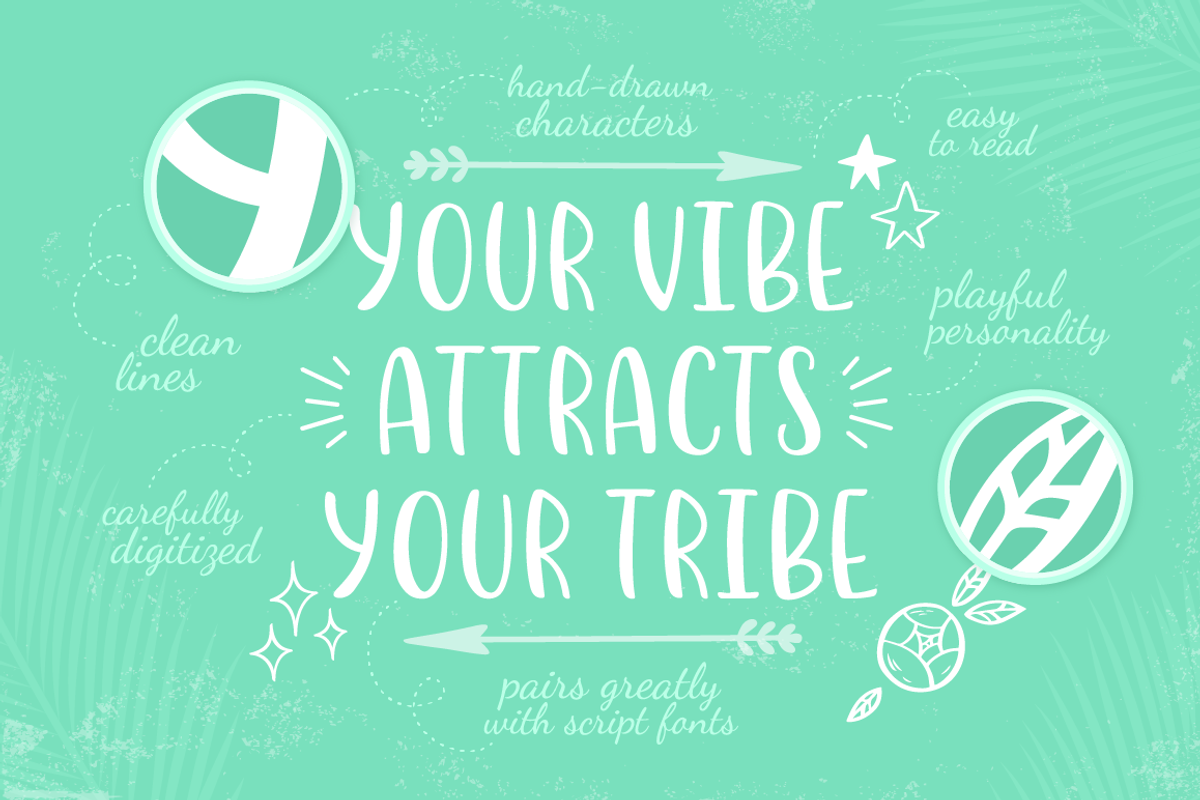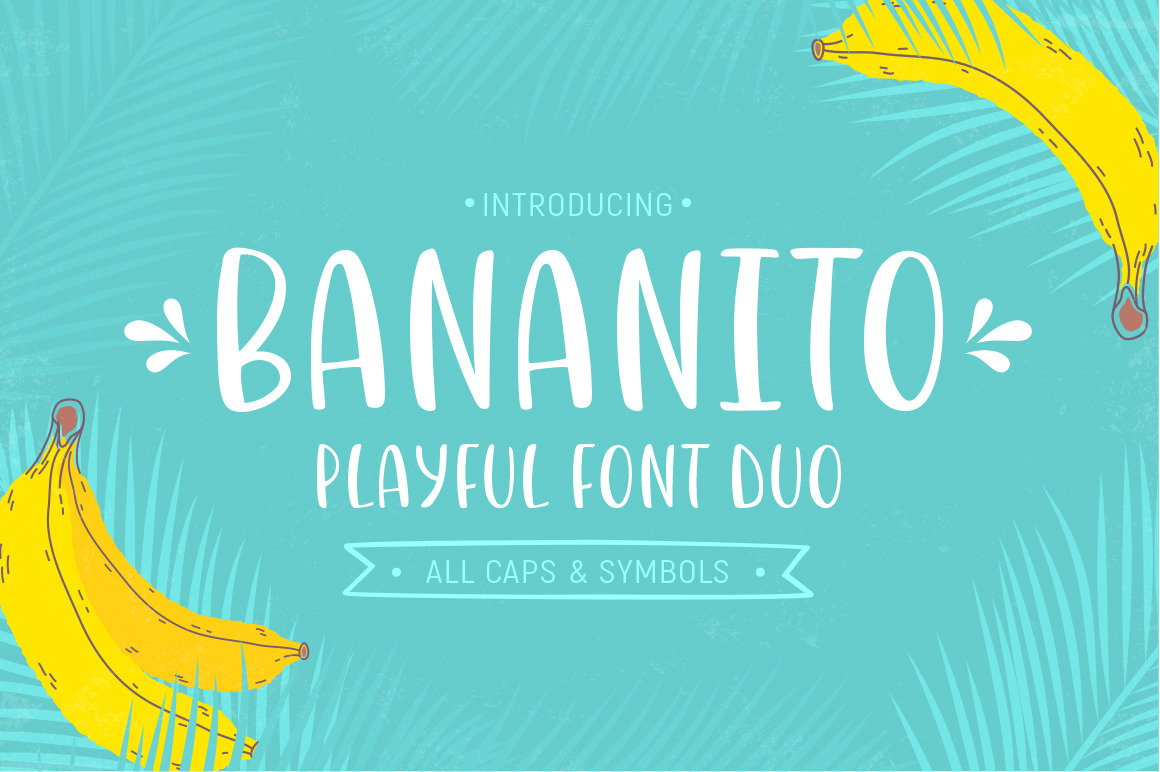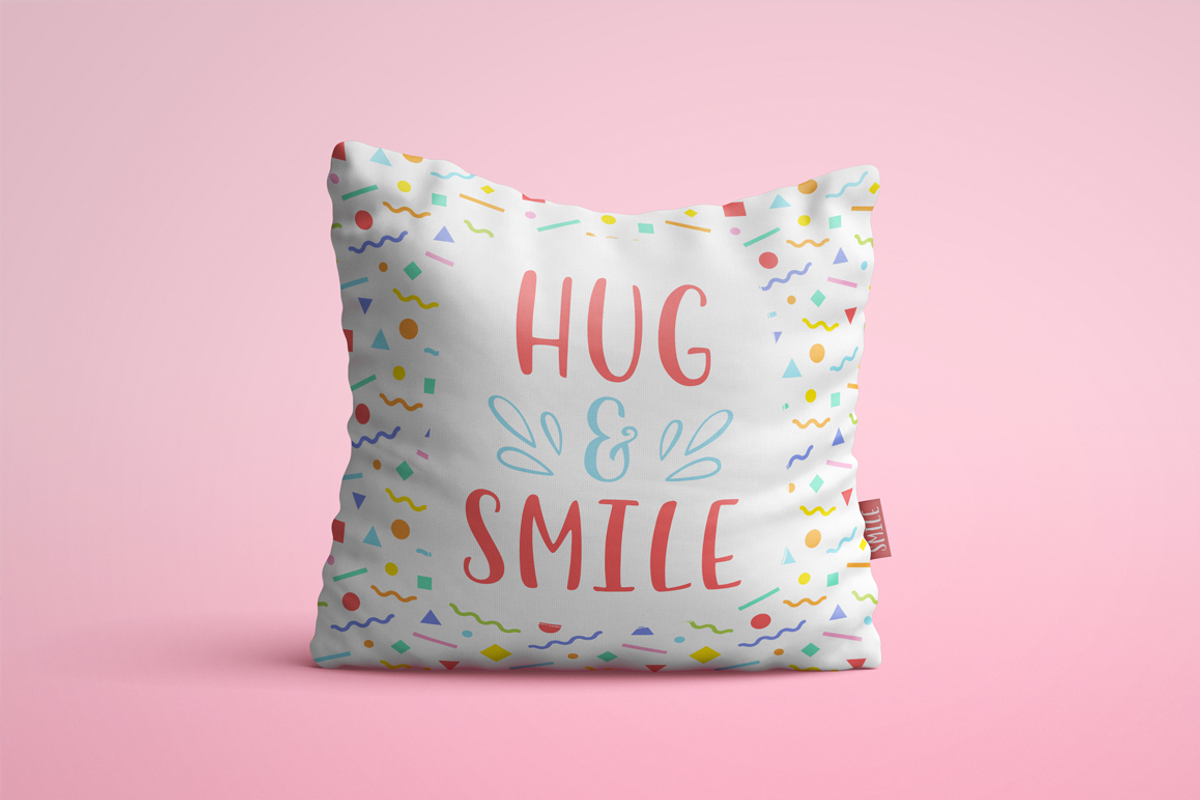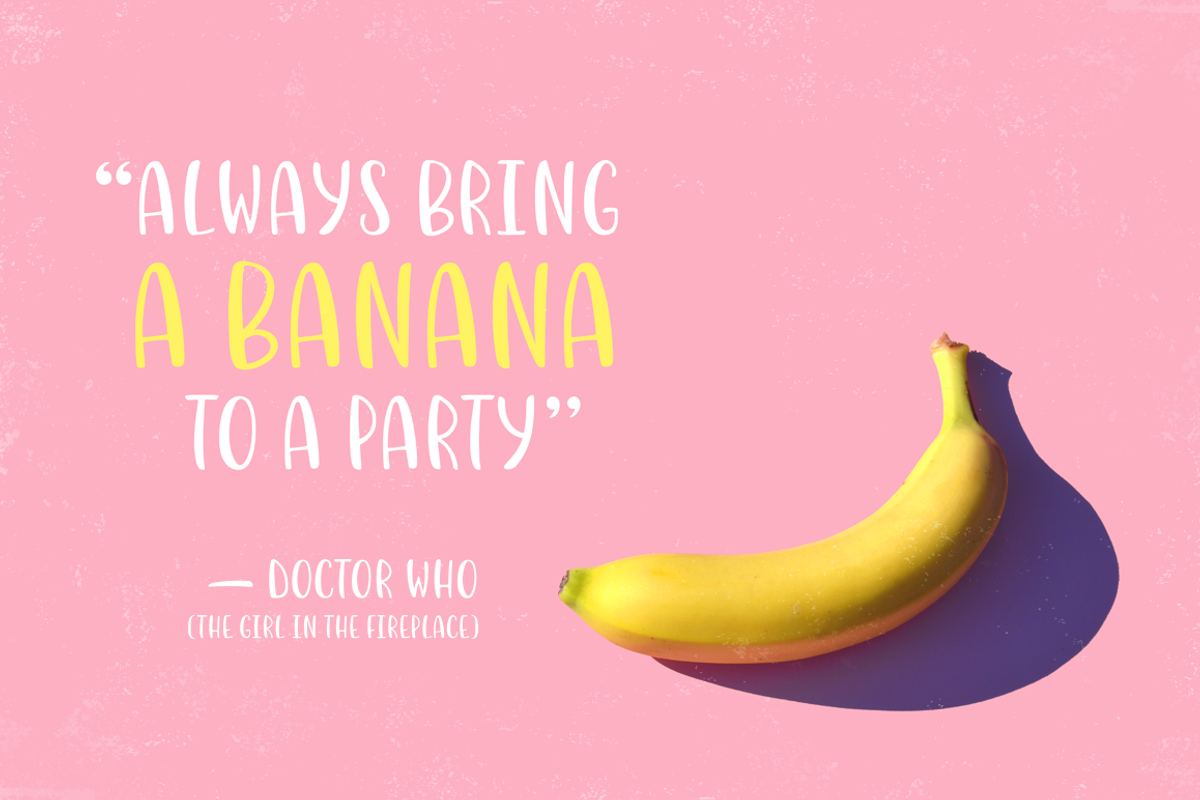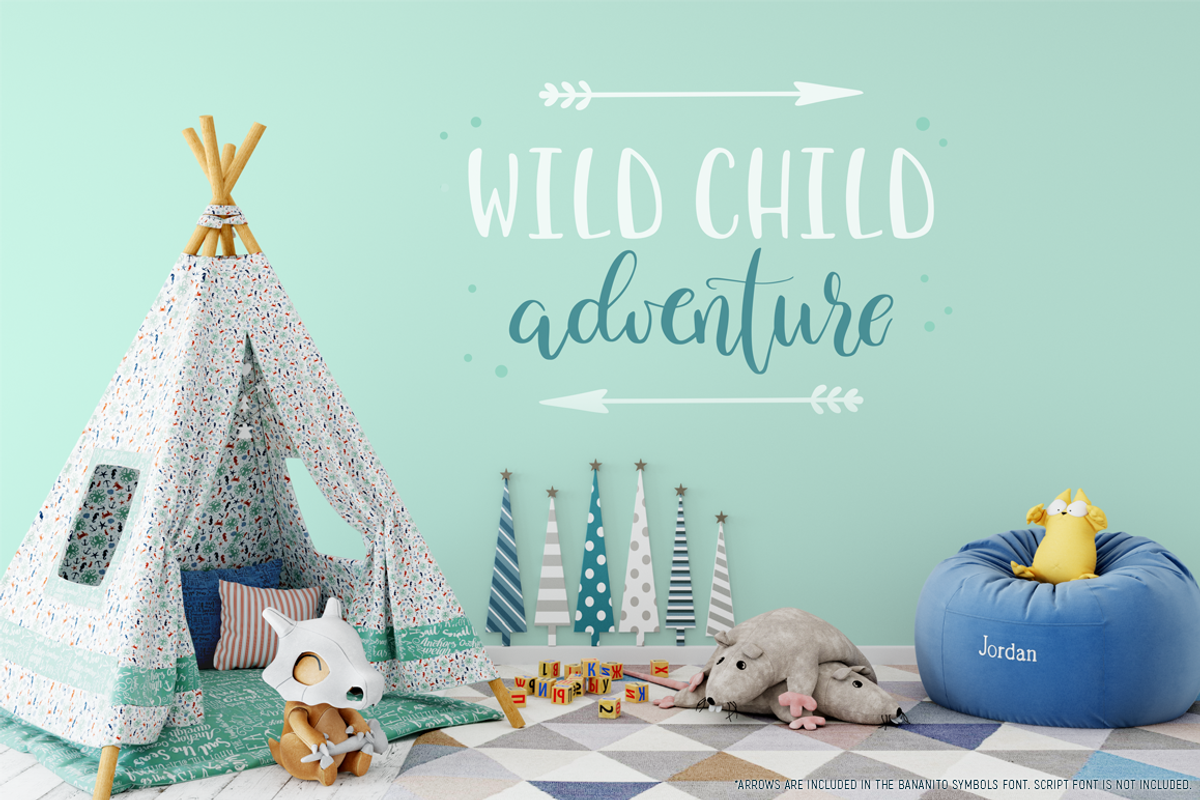
Bananito Font Duo
Introducing BANANITO — the new Font Duo with playful personality, clean lines, and hand-drawn origin!
BANANITO is a combination of a cheery uppercase display font and a unique symbols font with more than 60 doodle characters. These two fonts are a perfect match to make your design look fresh and creative.
They can be used for greeting cards, packaging and stationery design, magazine layouts, stickers and stencil design, prints, logotypes and more. Oh, and by the way, it looks great on t-shirts, apparel, and fabric!